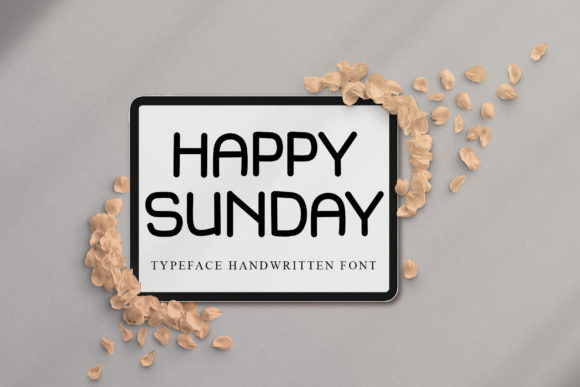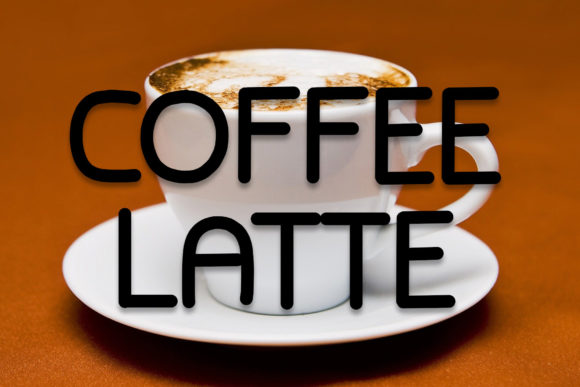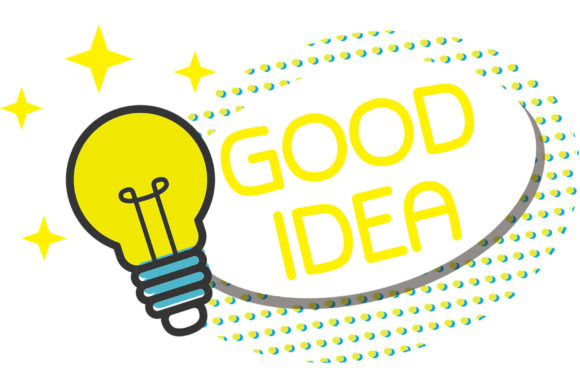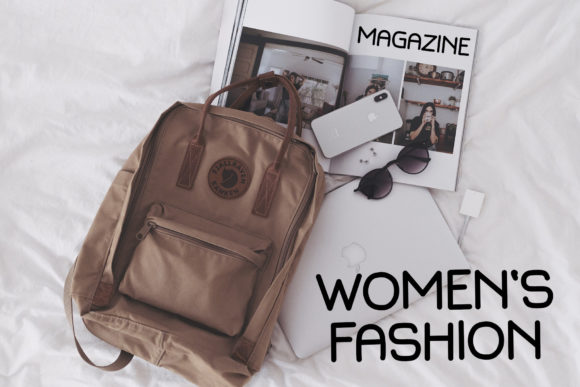
Hello Darling Font: Elevate Your Designs with Elegance and Sophistication
In the world of typography, fonts play a crucial role in conveying the tone and personality of a design. For designers and crafters looking to add a touch of elegance and sophistication to their projects, the Hello Darling Font is an excellent choice. This unique and elegant sans serif font is perfect for a variety of applications, from wedding invitations and greeting cards to billboards, logos, and business cards.
What Makes Hello Darling Font Stand Out?
Hello Darling Font is a standout in the world of typography due to its distinctive and refined aesthetic. Its sans serif design gives it a clean and modern look, while its elegant curves and lines add a touch of sophistication. This font is carefully crafted to provide a unique and original touch to any design, making it perfect for those looking to create something truly special.
Wedding invitations and greeting cards are special occasions that call for a font that exudes elegance and romance. Hello Darling Font is an ideal choice for these applications, as it adds a touch of sophistication and whimsy to any design. Its clean lines and elegant curves make it perfect for conveying the joy and excitement of special occasions.
Great for Billboards, Logos, and Business Cards
Hello Darling Font is not just limited to personal and special occasion designs. Its versatility makes it an excellent choice for commercial applications, such as billboards, logos, and business cards. Its unique and elegant design makes it perfect for businesses looking to create a lasting impression and stand out from the competition.
Why Choose Hello Darling Font?
There are many reasons why designers and crafters should choose Hello Darling Font for their projects. Here are just a few:
- Unique and Elegant Design: Hello Darling Font has a distinctive and refined aesthetic that adds a touch of sophistication to any design.
- Versatile: This font is perfect for a variety of applications, from personal to commercial projects.
- Easy to Read: Hello Darling Font is clean and easy to read, making it perfect for designs that require clear communication.
- High-Quality: This font is carefully crafted to provide a high-quality design that will elevate any project.
How to Use Hello Darling Font in Your Designs
Using Hello Darling Font in your designs is easy. Here are a few tips to get you started:
- Pair it with Other Fonts: Hello Darling Font pairs well with other fonts, such as serif fonts, to create a unique and interesting design.
- Experiment with Colors: This font looks great in a variety of colors, from bold and bright to soft and pastel.
- Use it for Headings and Titles: Hello Darling Font is perfect for headings and titles, where its elegant design can shine.
Hello Darling Font is a unique and elegant sans serif font that is perfect for designers and crafters looking to add a touch of sophistication to their projects. Its versatility, elegance, and high-quality design make it an excellent choice for a variety of applications, from wedding invitations and greeting cards to billboards, logos, and business cards. With its clean lines, elegant curves, and distinctive aesthetic, Hello Darling Font is sure to elevate any design and make it truly special.